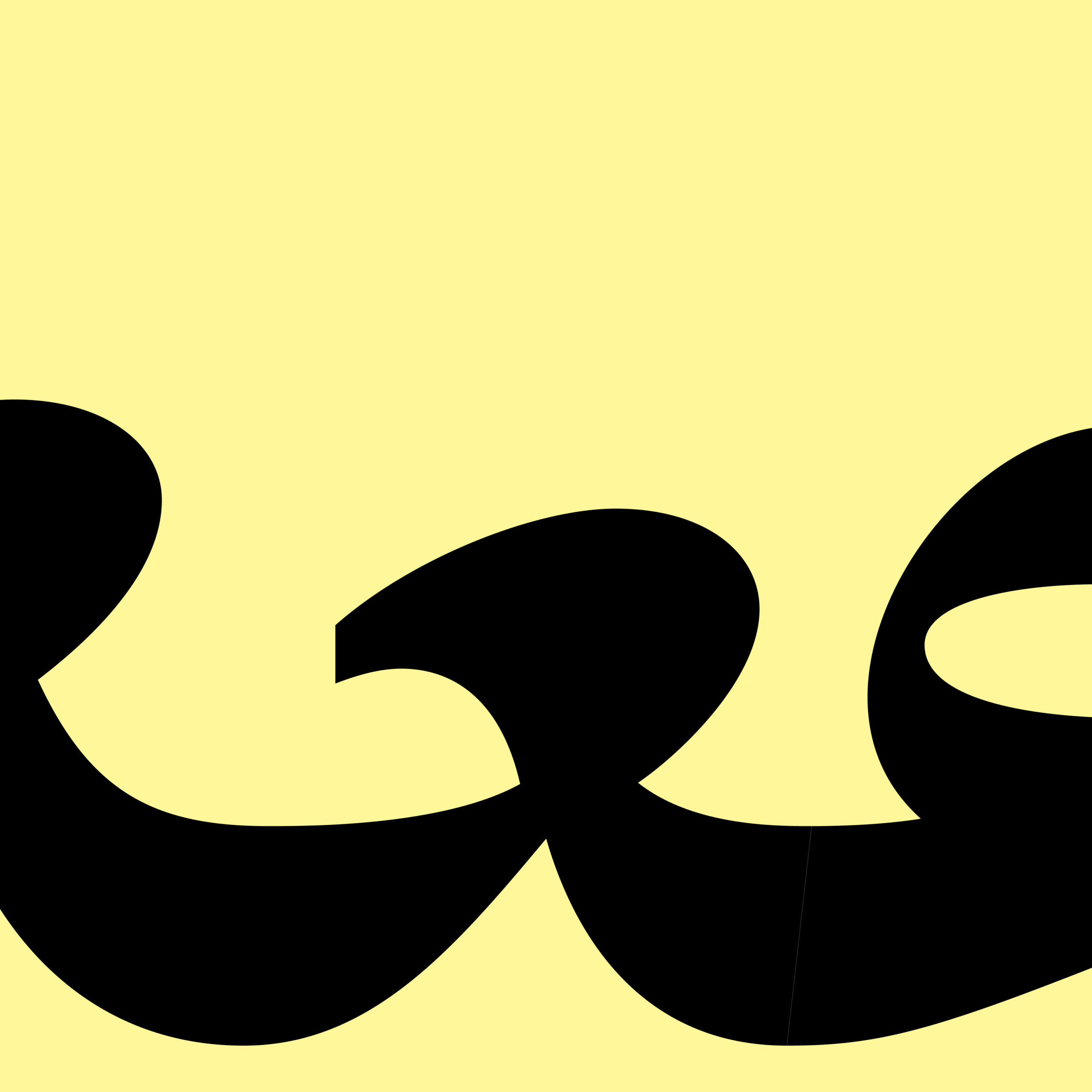
Arabic Experimental Typeface
This experimental Naskh typeface is inspired by Nastaliq calligraphy after seeing a lettering of an old shop sign in Heliopolis next to my old house.